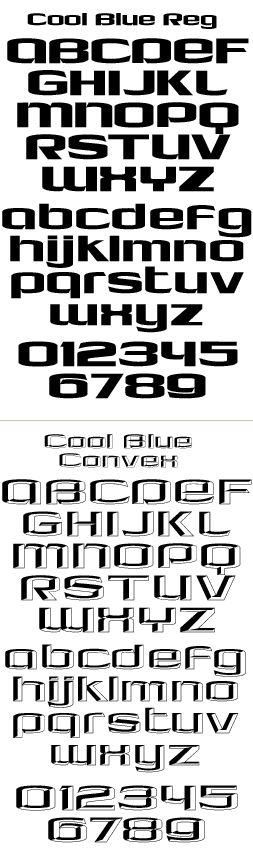
LHF Cool Blue Modern typeface with two versions: Regular
& Convex. Both include full punctuation and numbers. A nice
alternative to Microgramma or Serpentine. A terrific font for vehicle
signage.